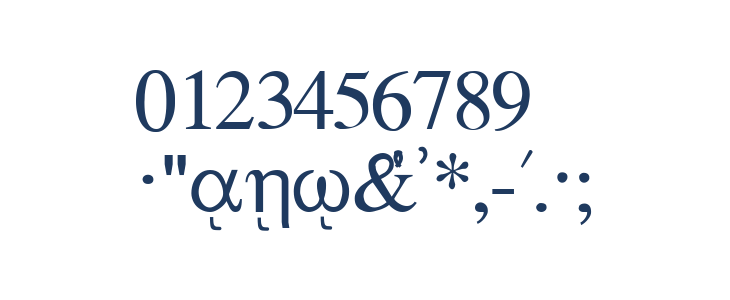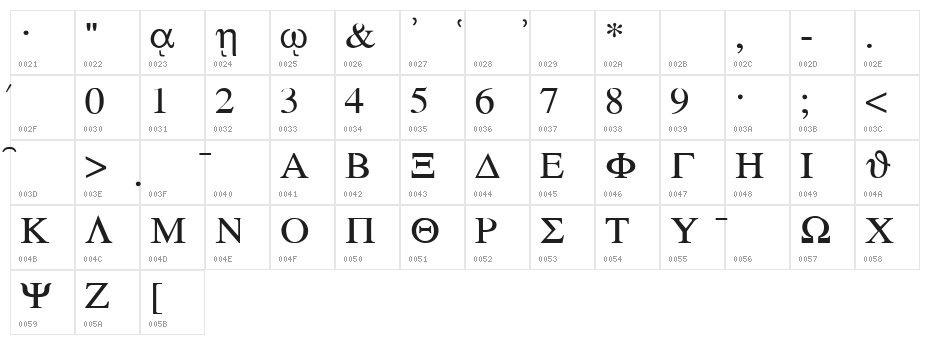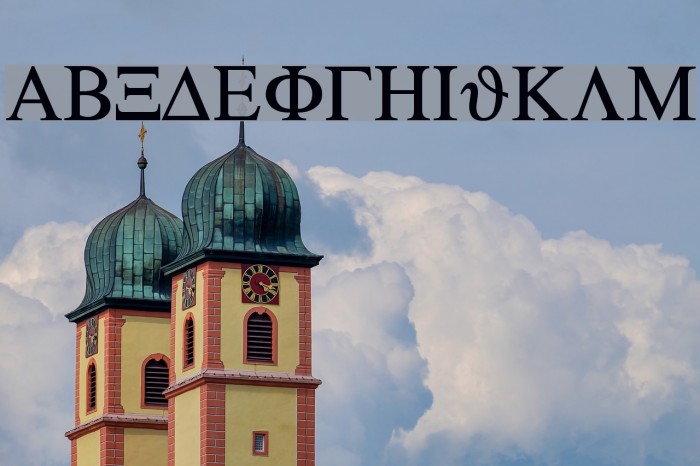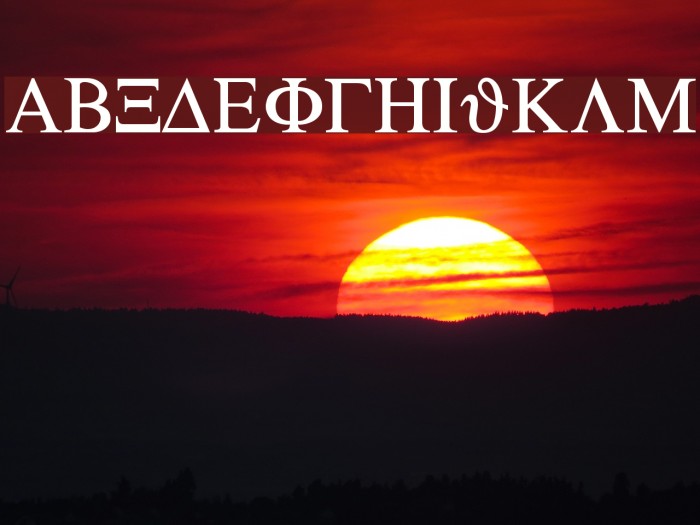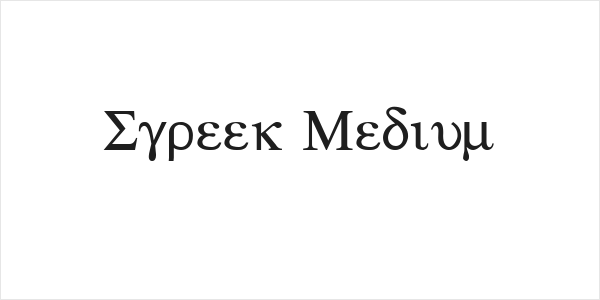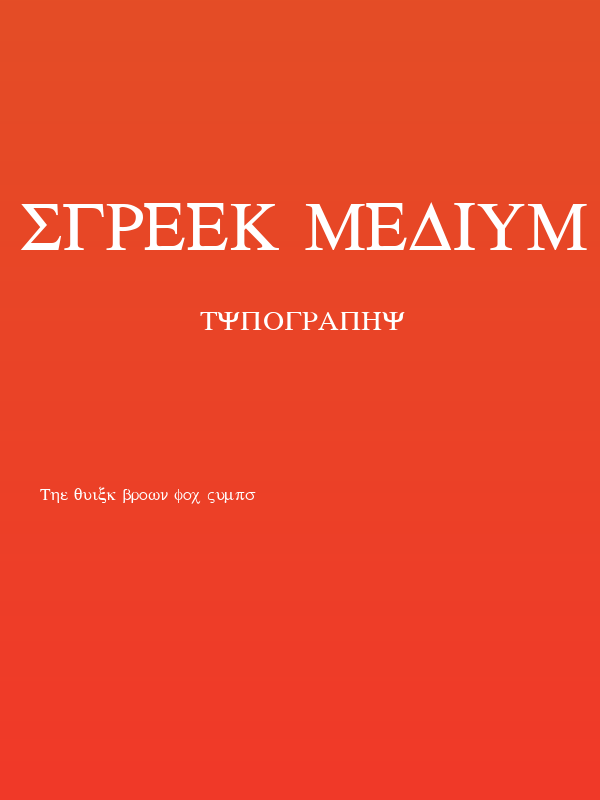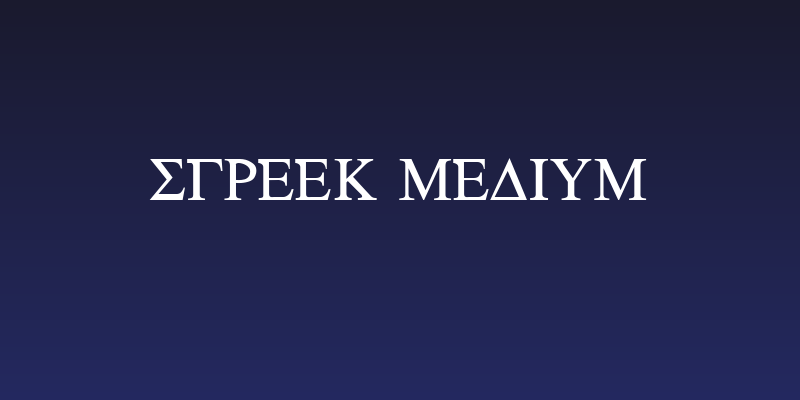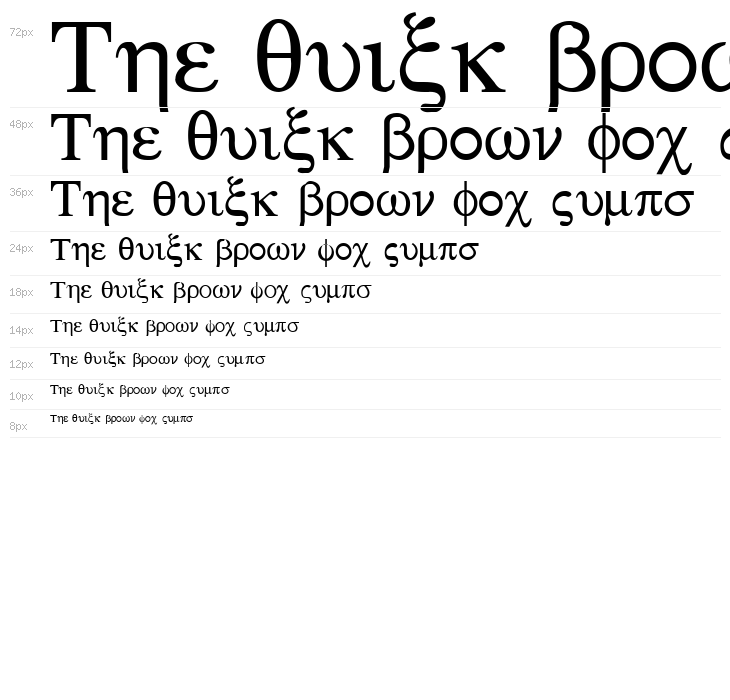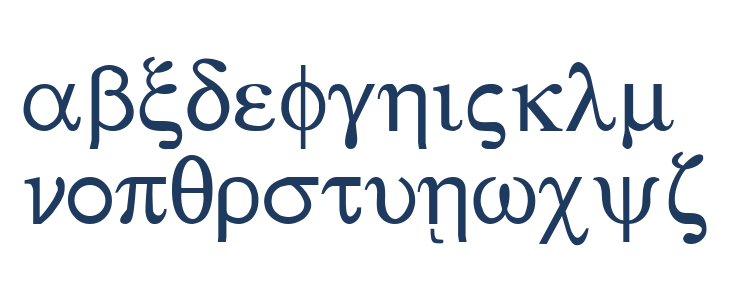
Sgreek Medium Font
Sgreek Medium Description
This font features a classic Greek style with distinct serifs and a medium weight that balances readability with elegance. The uppercase letters are bold and commanding, while the lowercase letters maintain a traditional aesthetic with smooth curves and consistent stroke widths. The numerals are clear and well-proportioned, making them suitable for various applications. Special characters are included, enhancing the font's versatility. The overall design is both timeless and functional, ideal for projects that require a touch of classical sophistication.
Overall StyleClassic
Proposed ProjectsIdeal for academic publications, historical documents, cultural event posters, and classical-themed branding.